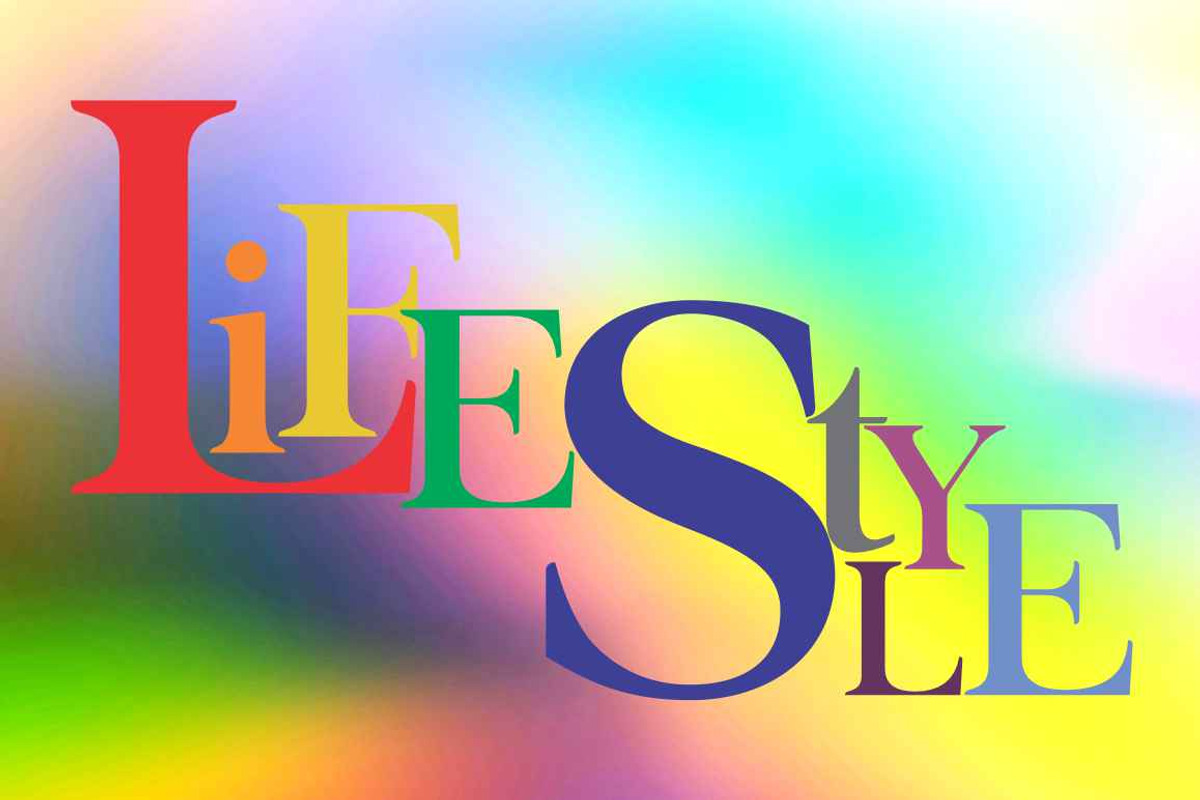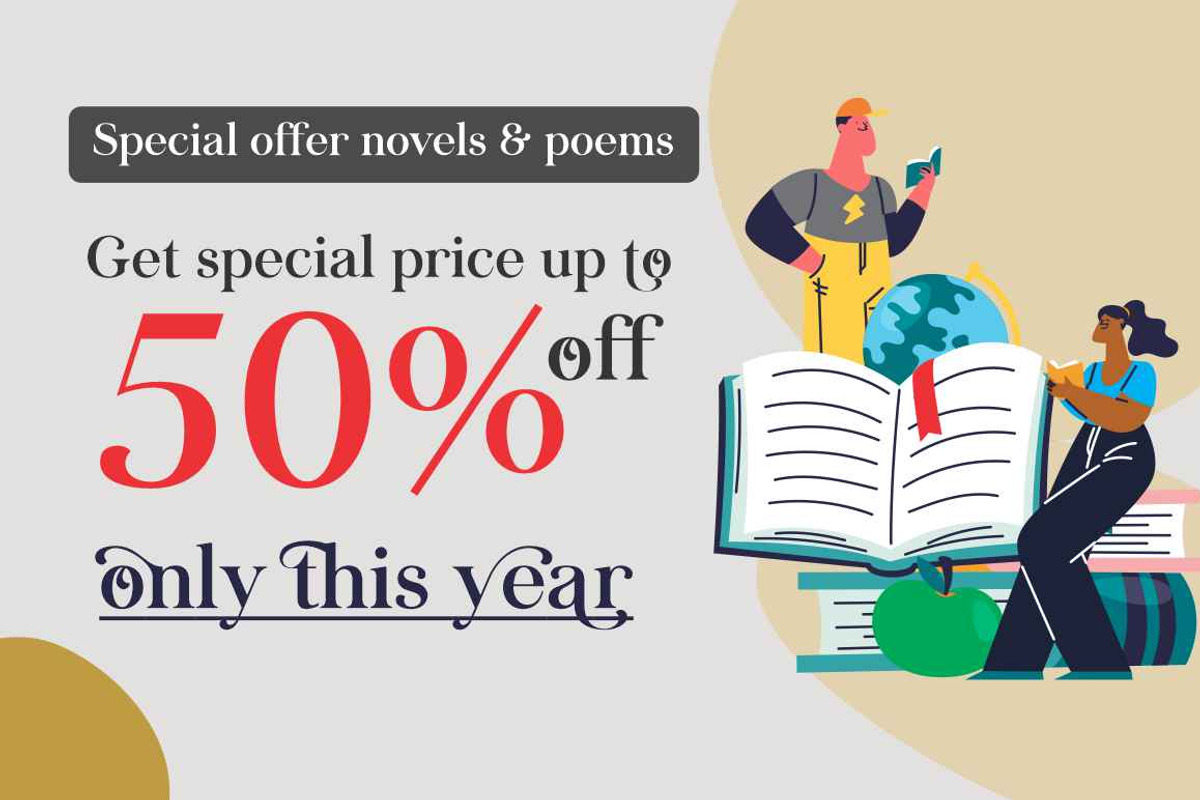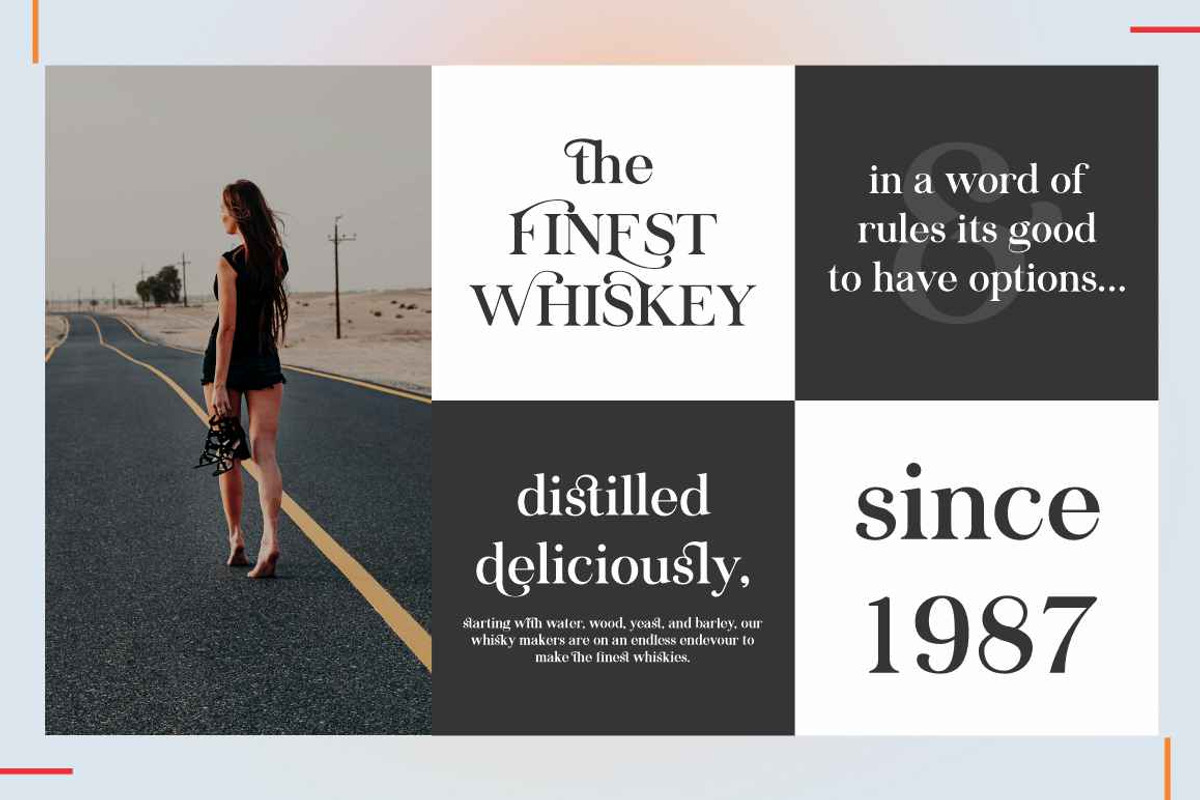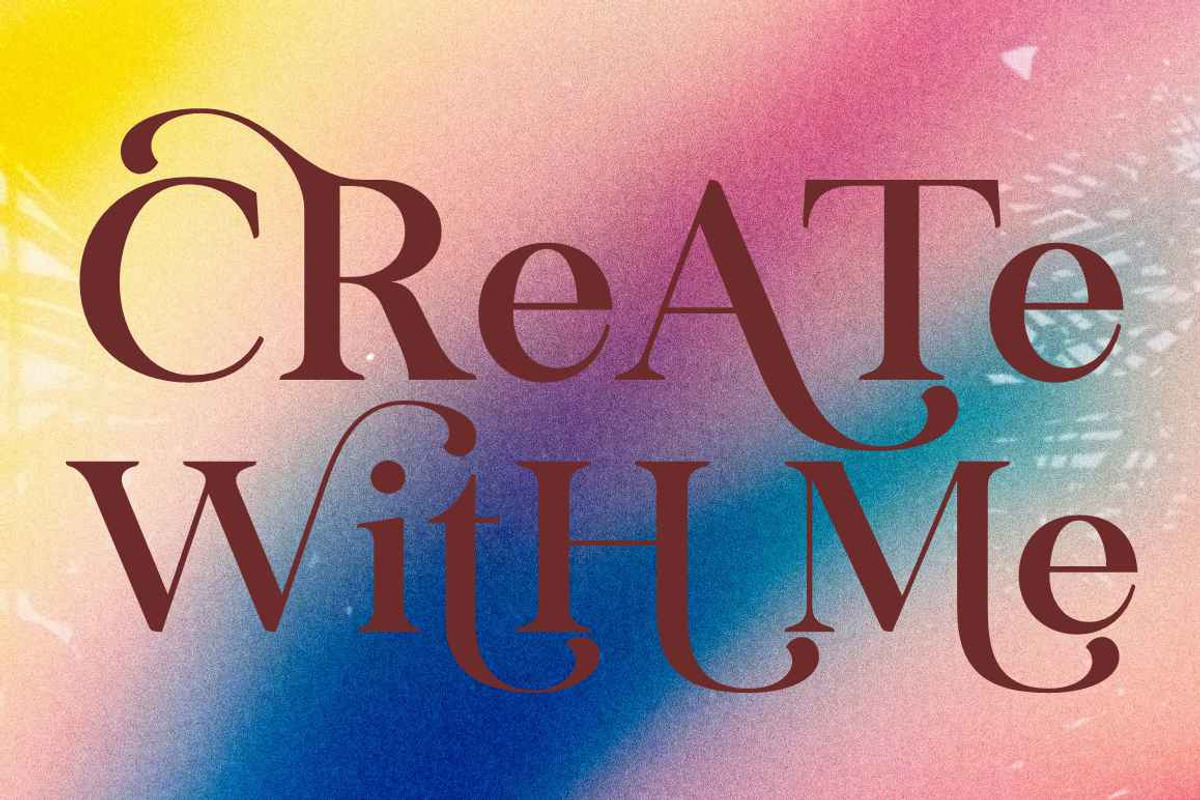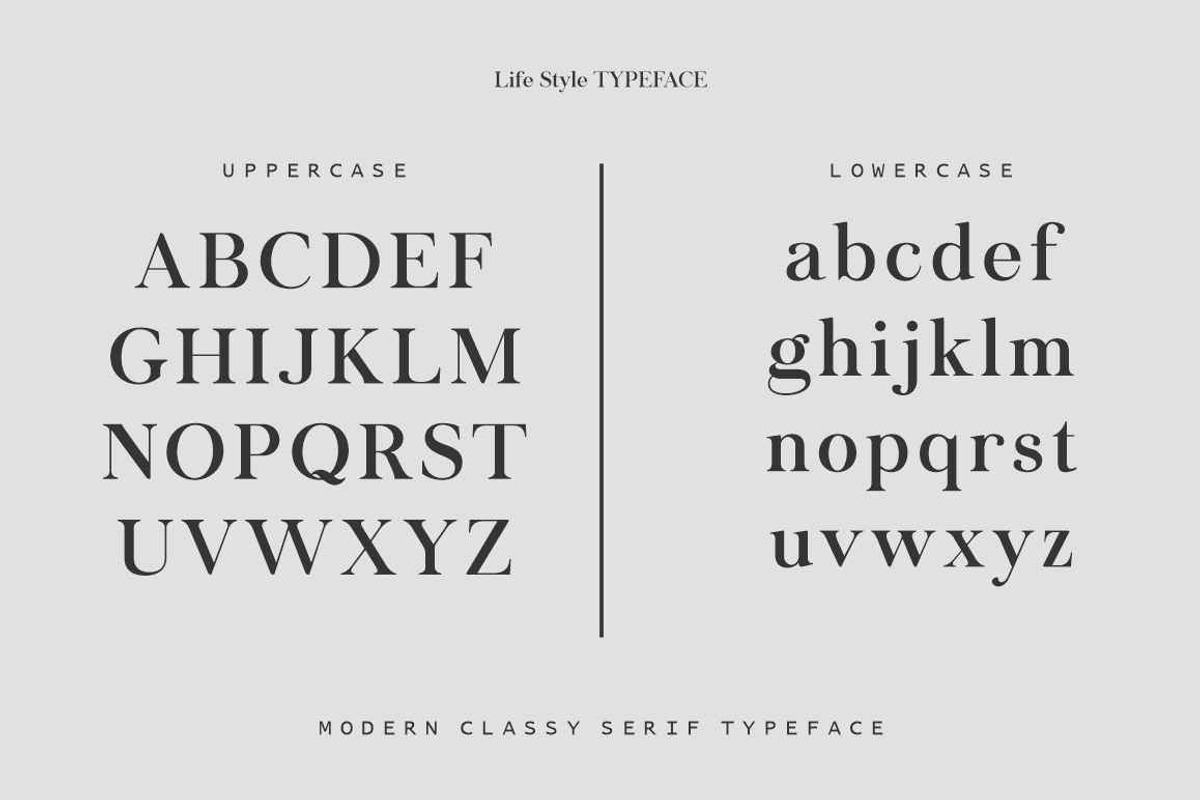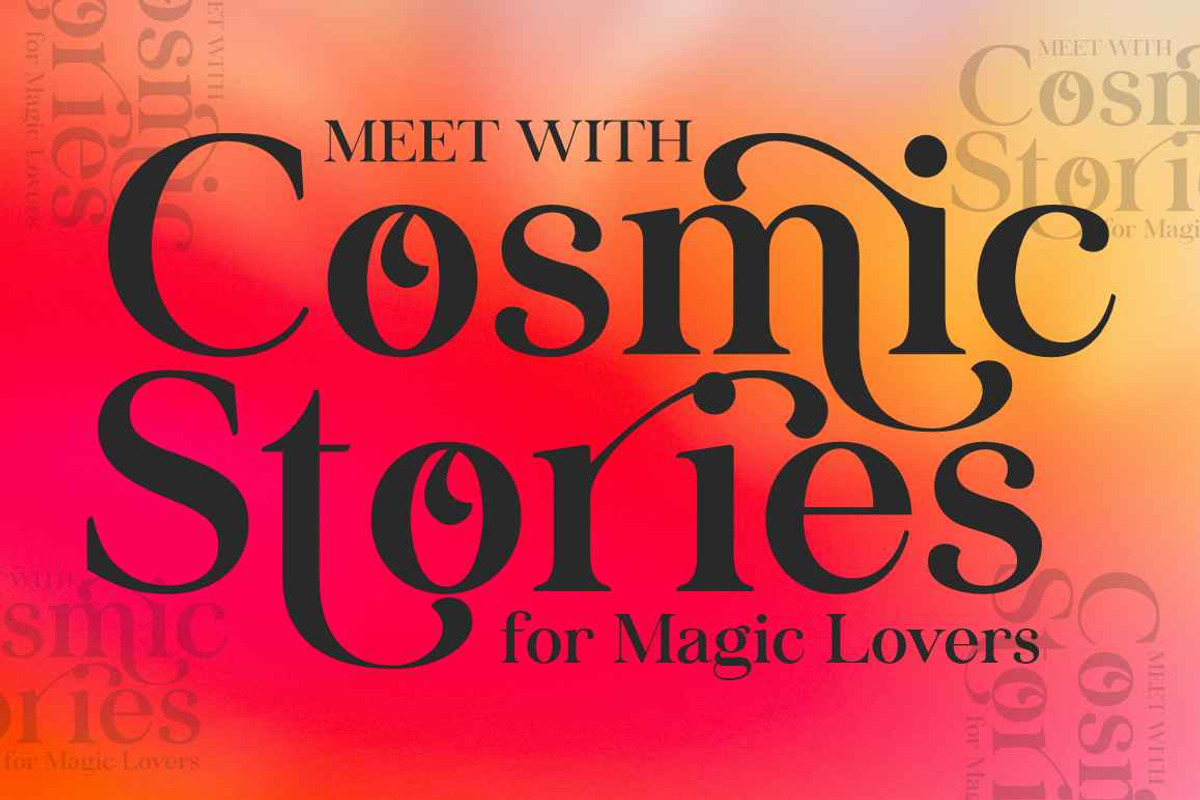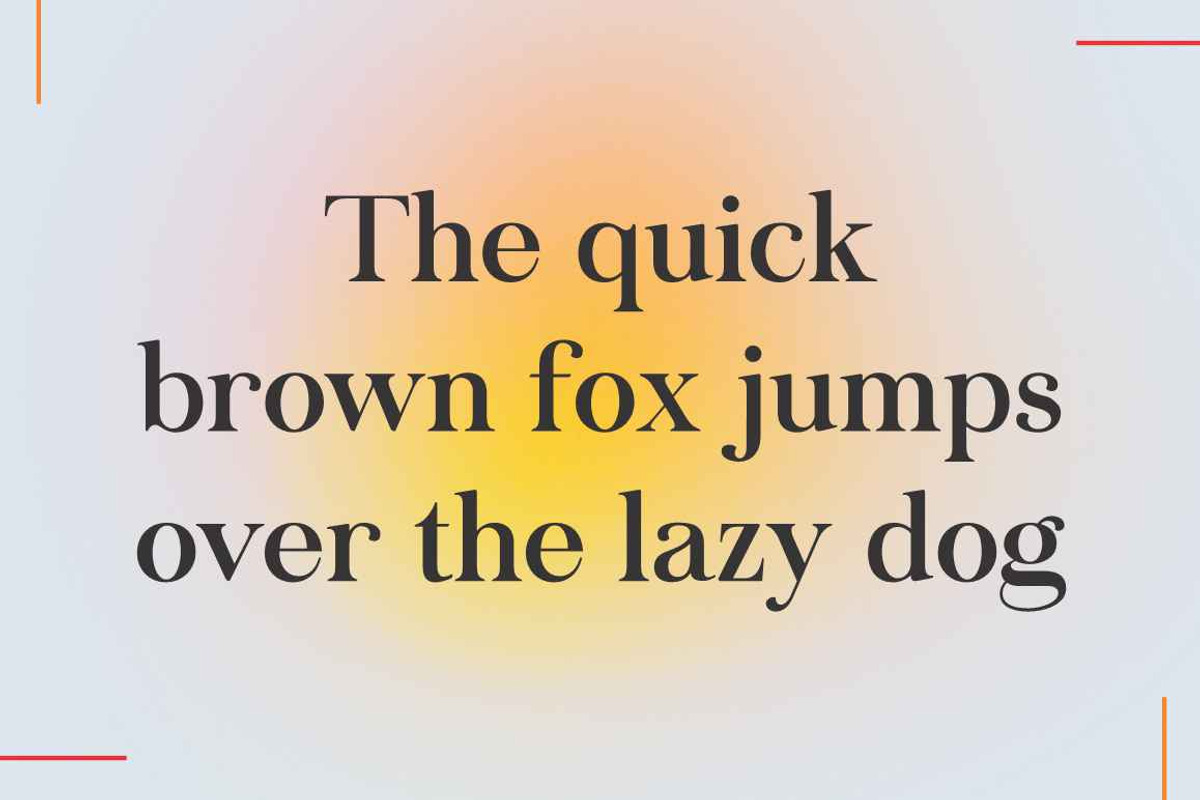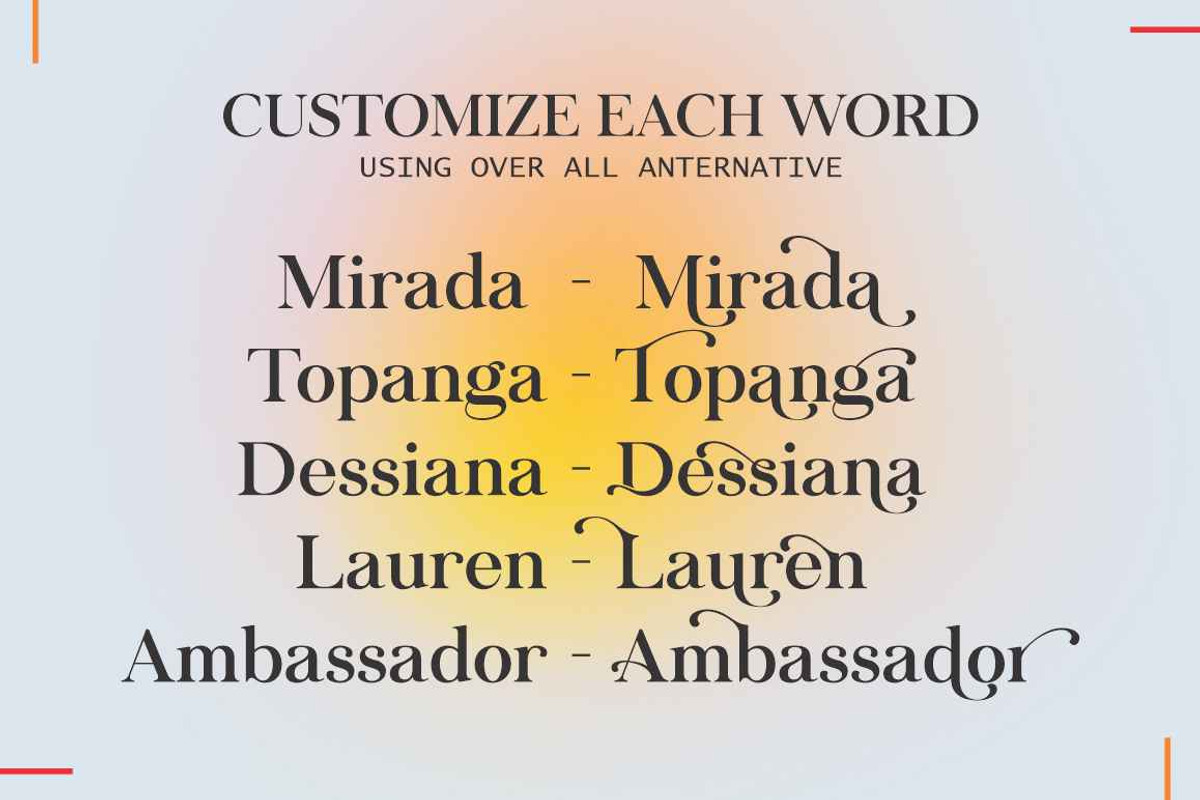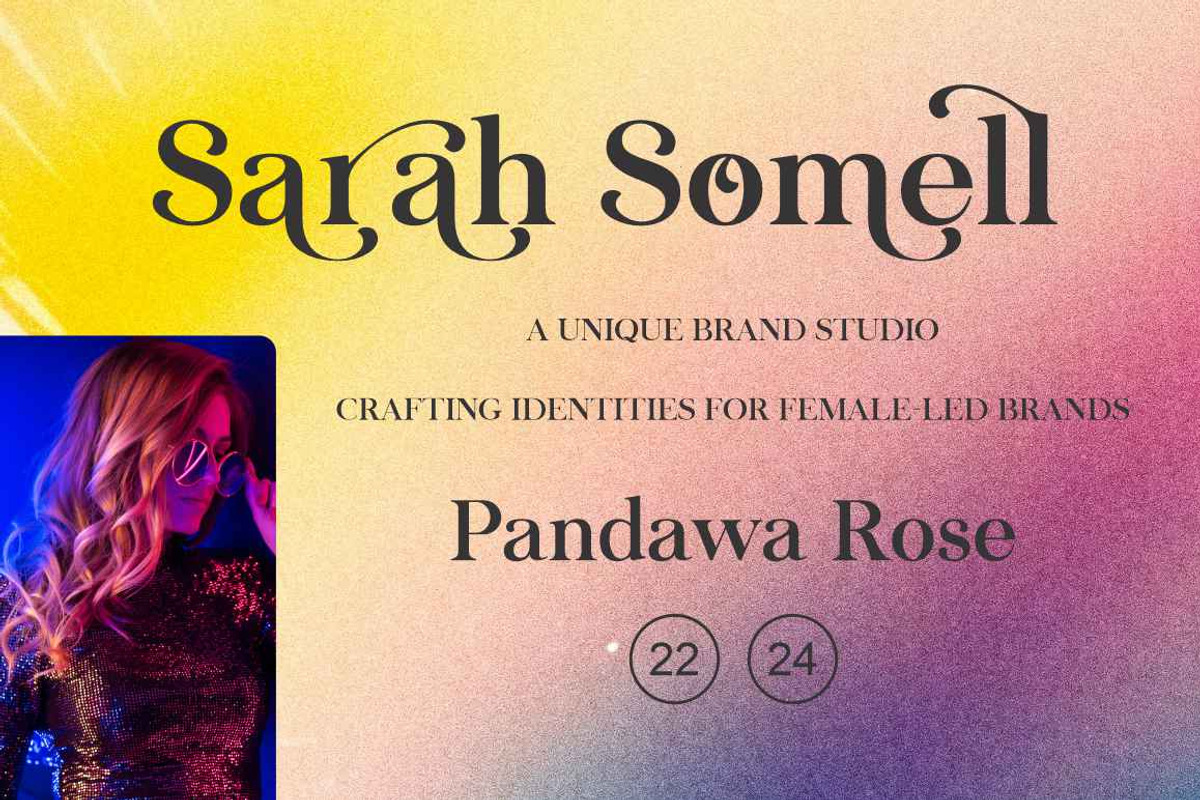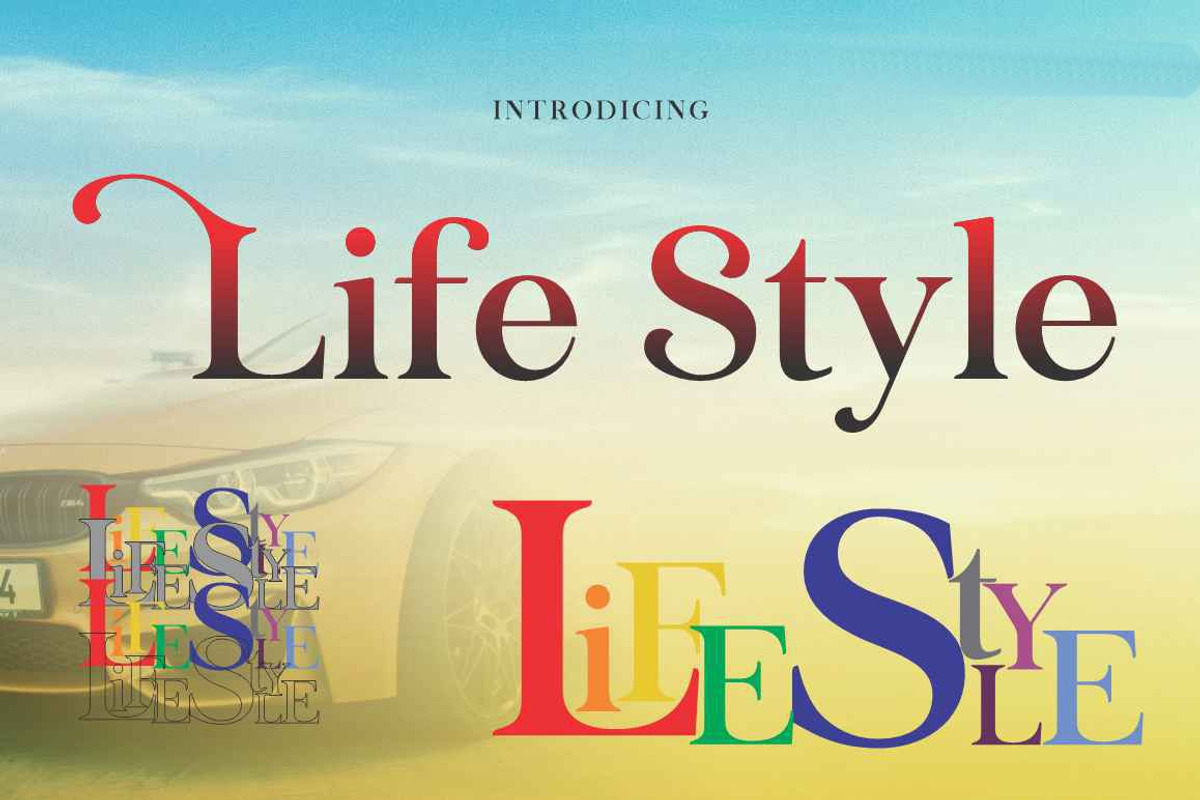
Life Style
Introducing Life Style - Classic Luxury Serif Font
Life Style is a stunning serif typeface that embodies sophistication and charm, designed to elevate your designs with its refined elegance. With a nod to timeless beauty and a touch of luxury modern flair, Life Style Font strikes the perfect balance between classic appeal and contemporary style.
Life Style is perfectly suited for branding, logotypes, wedding invitations, romantic quotes, labels, social media posts, advertisements, product packaging, product designs, label, photography, watermark, invitation, stationery and any projects seeking premium quality and luxury feel.